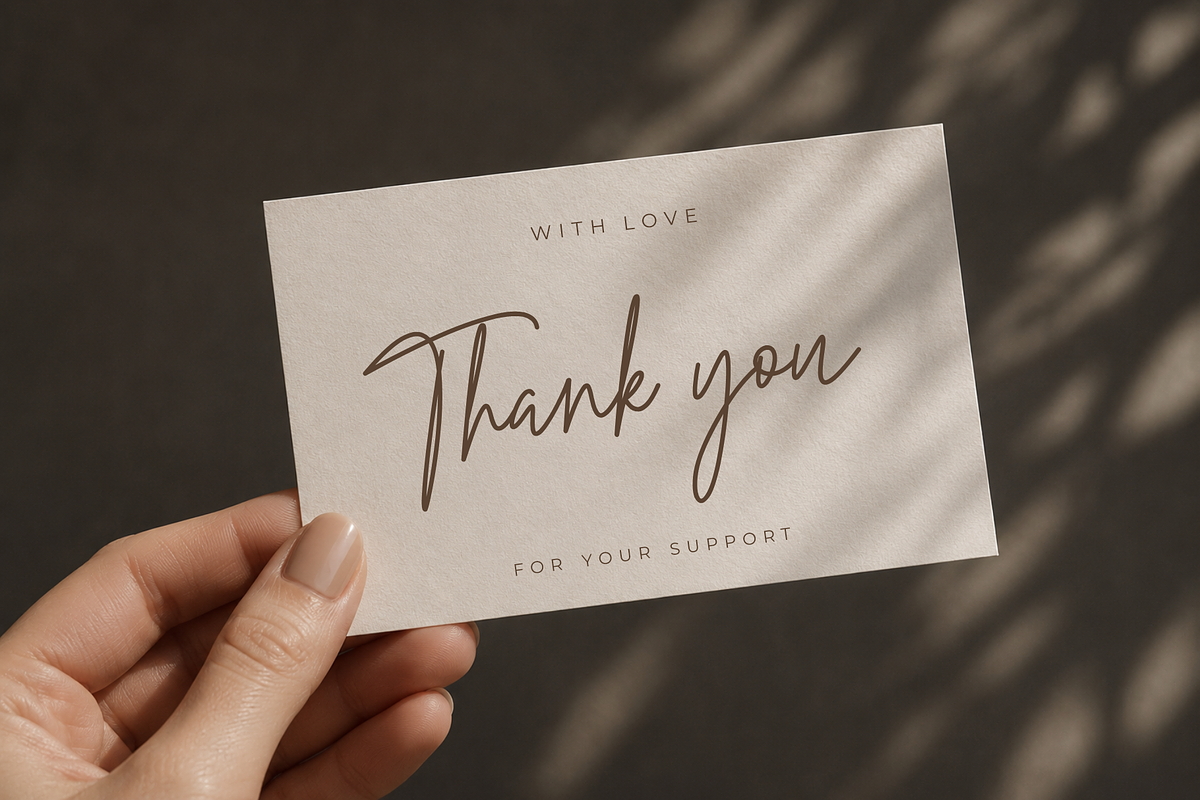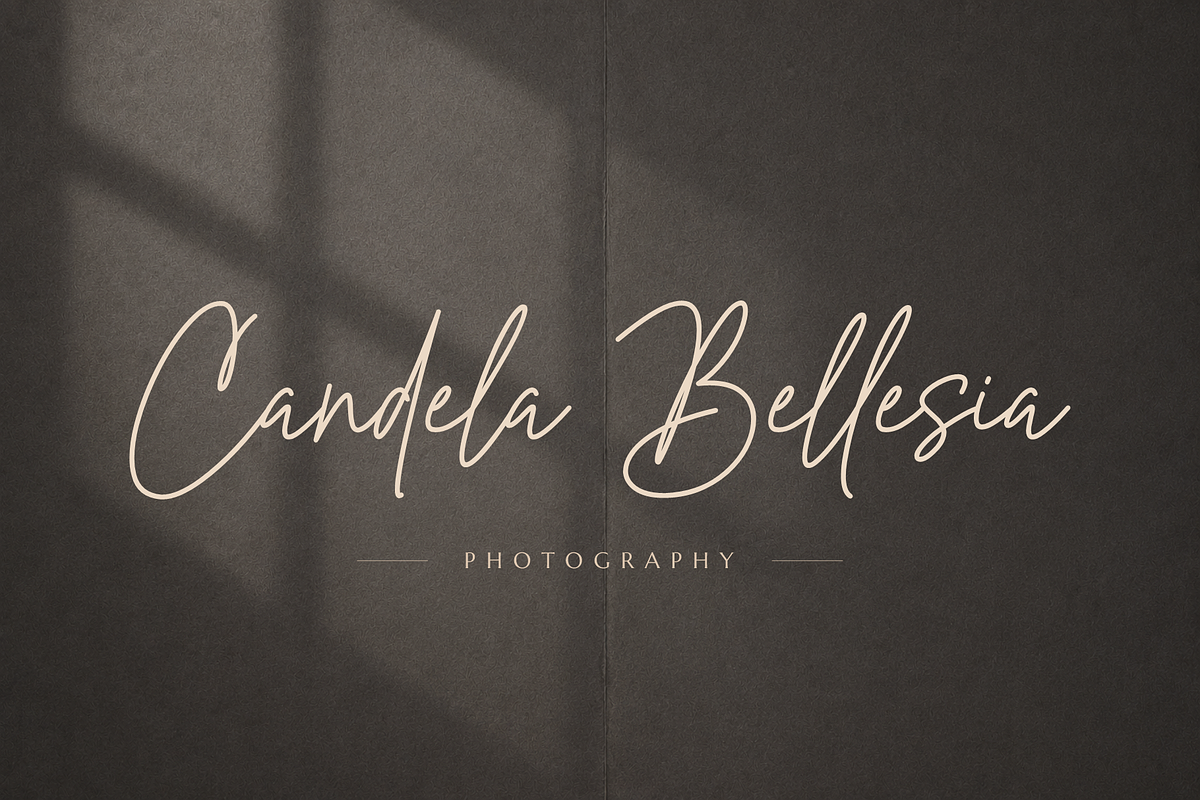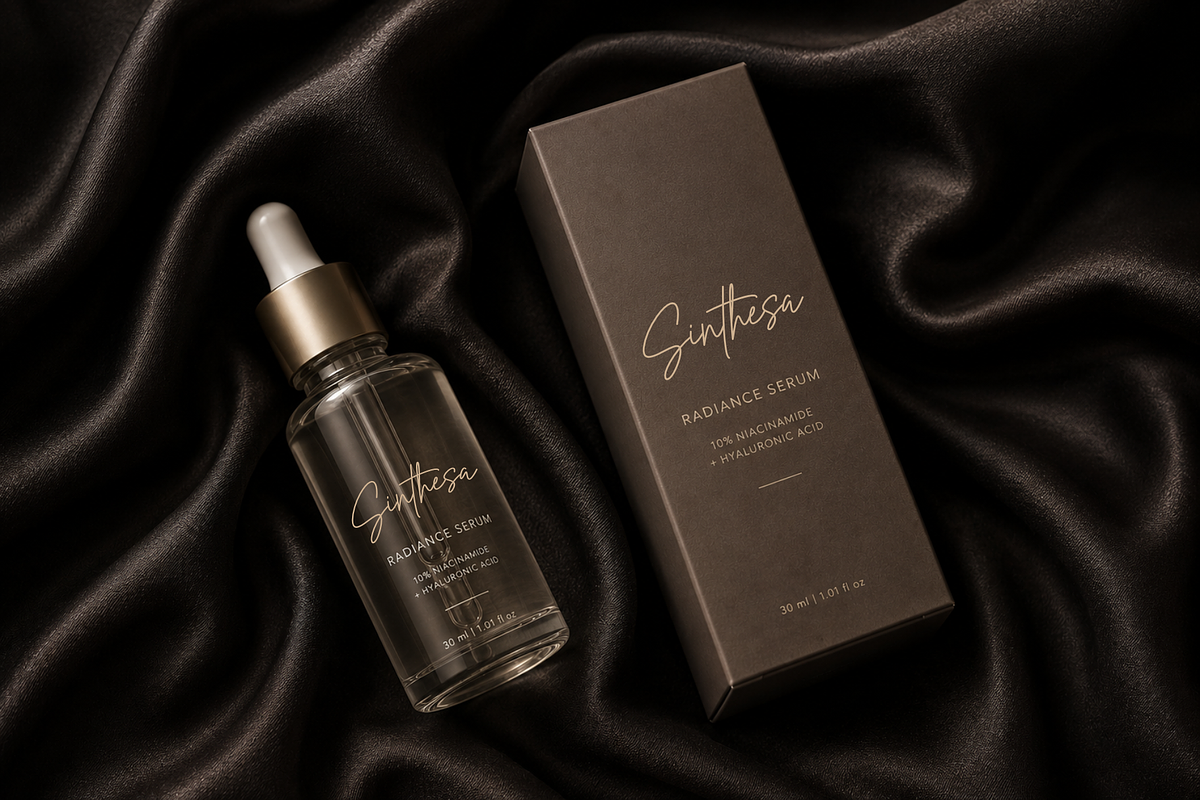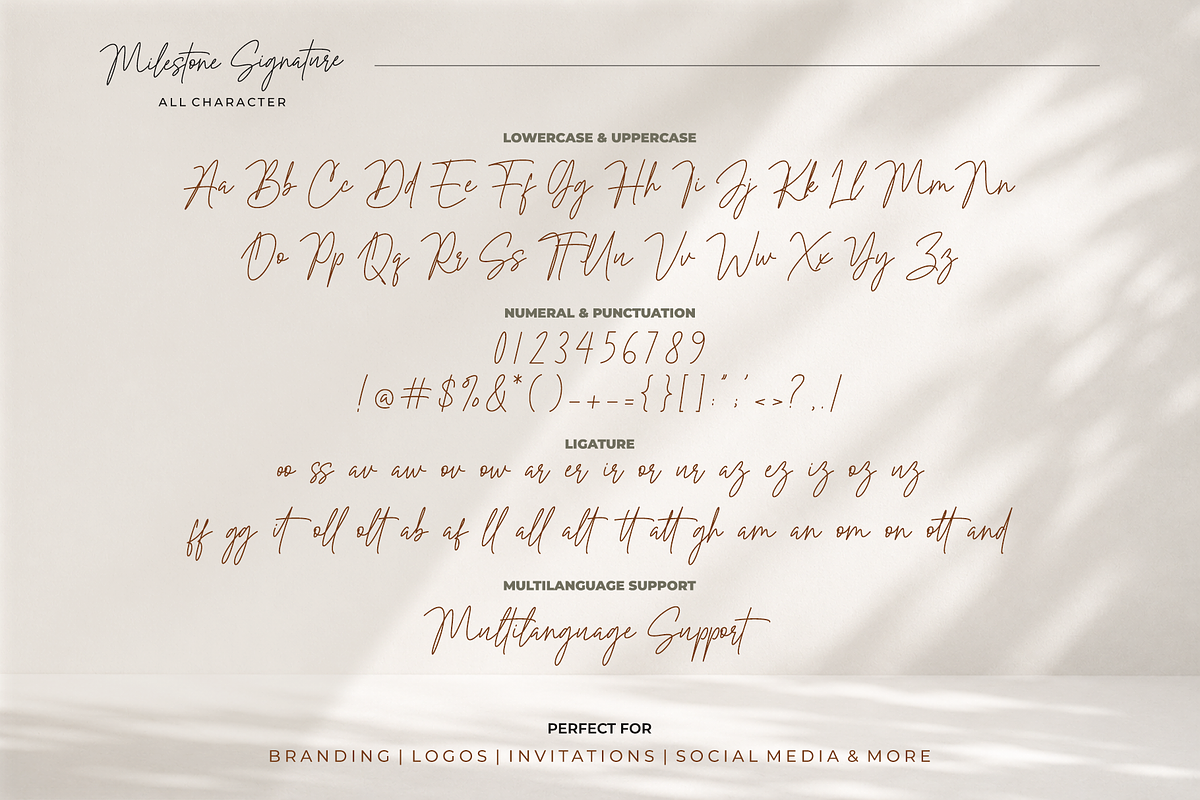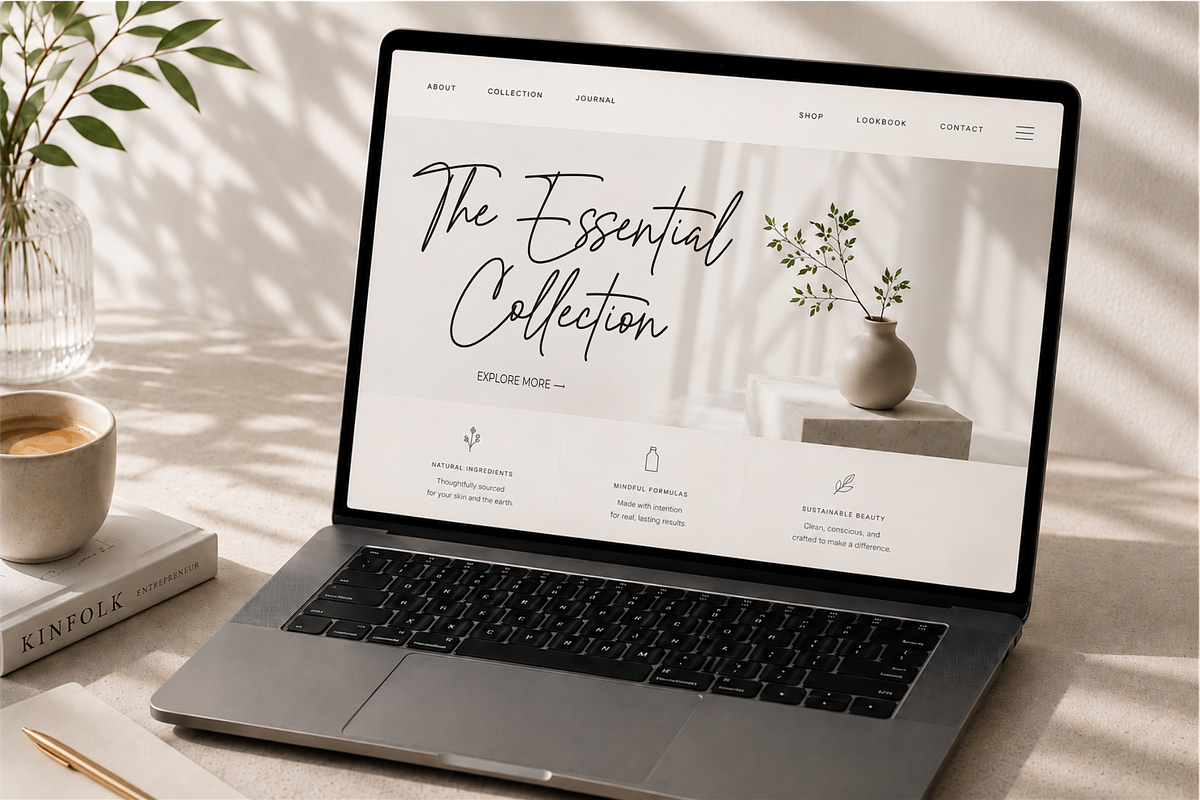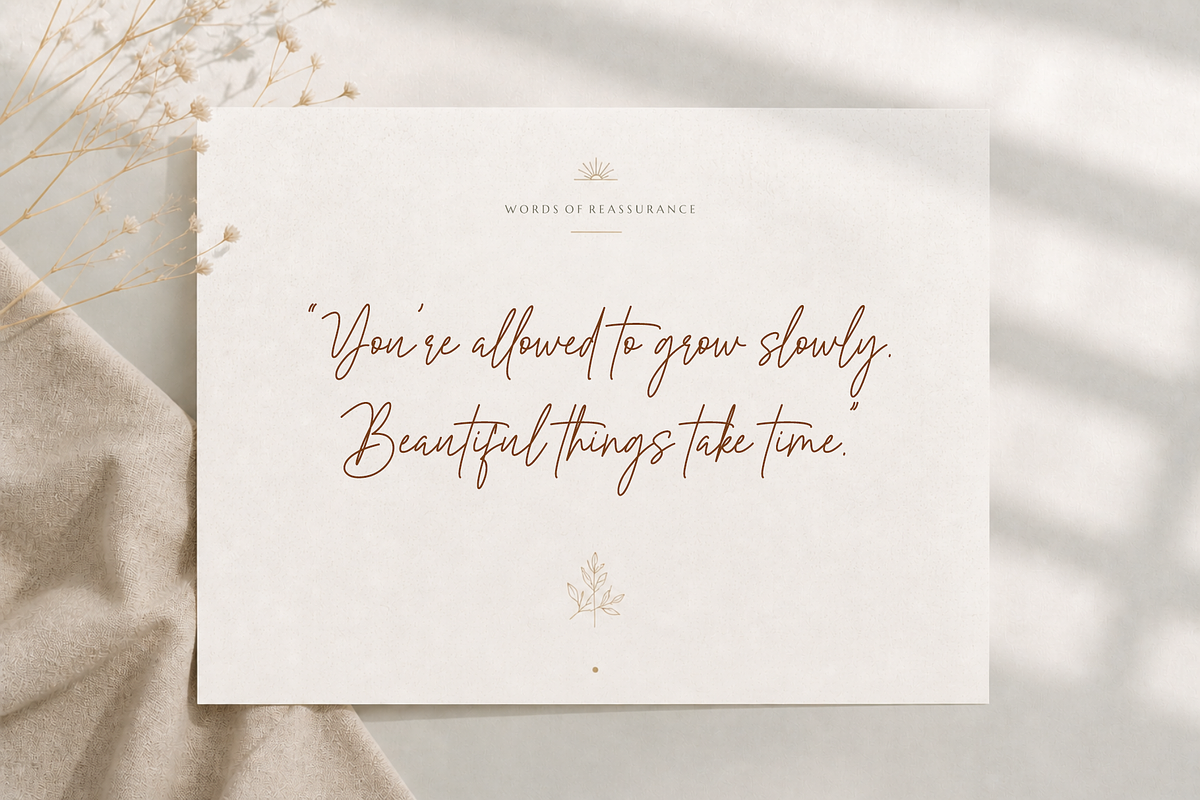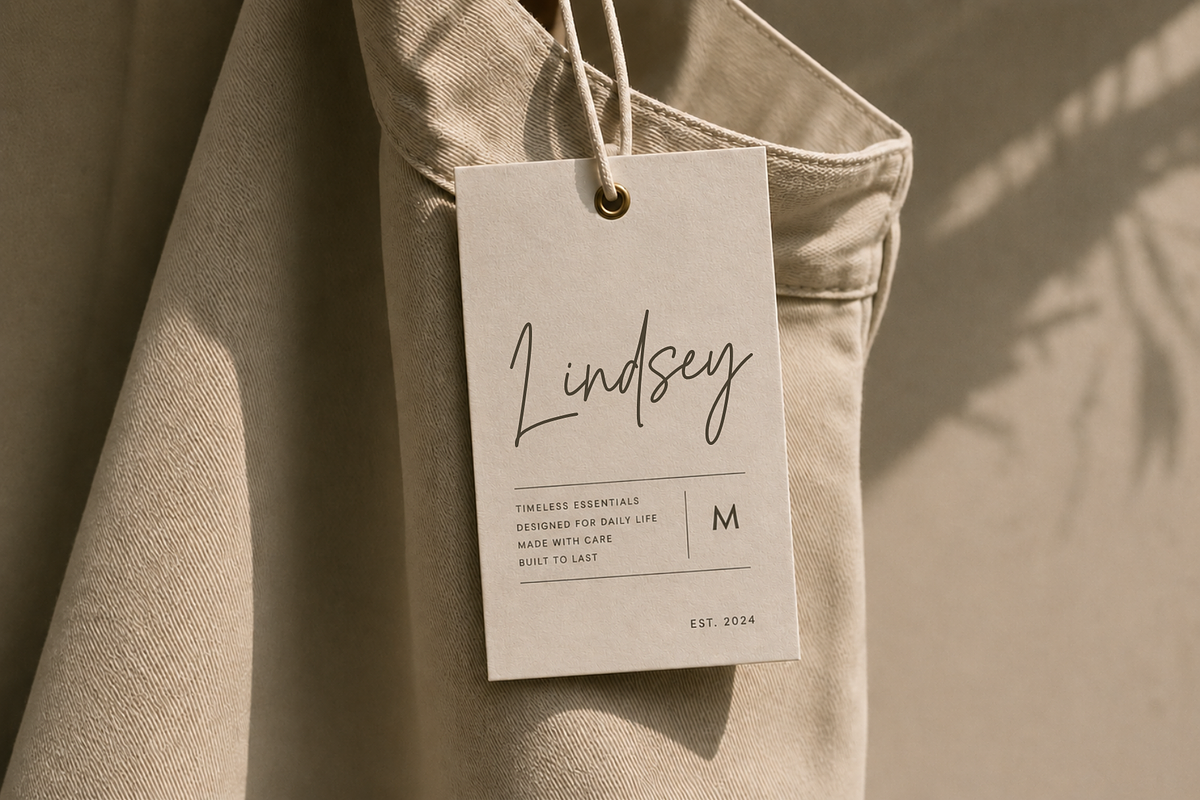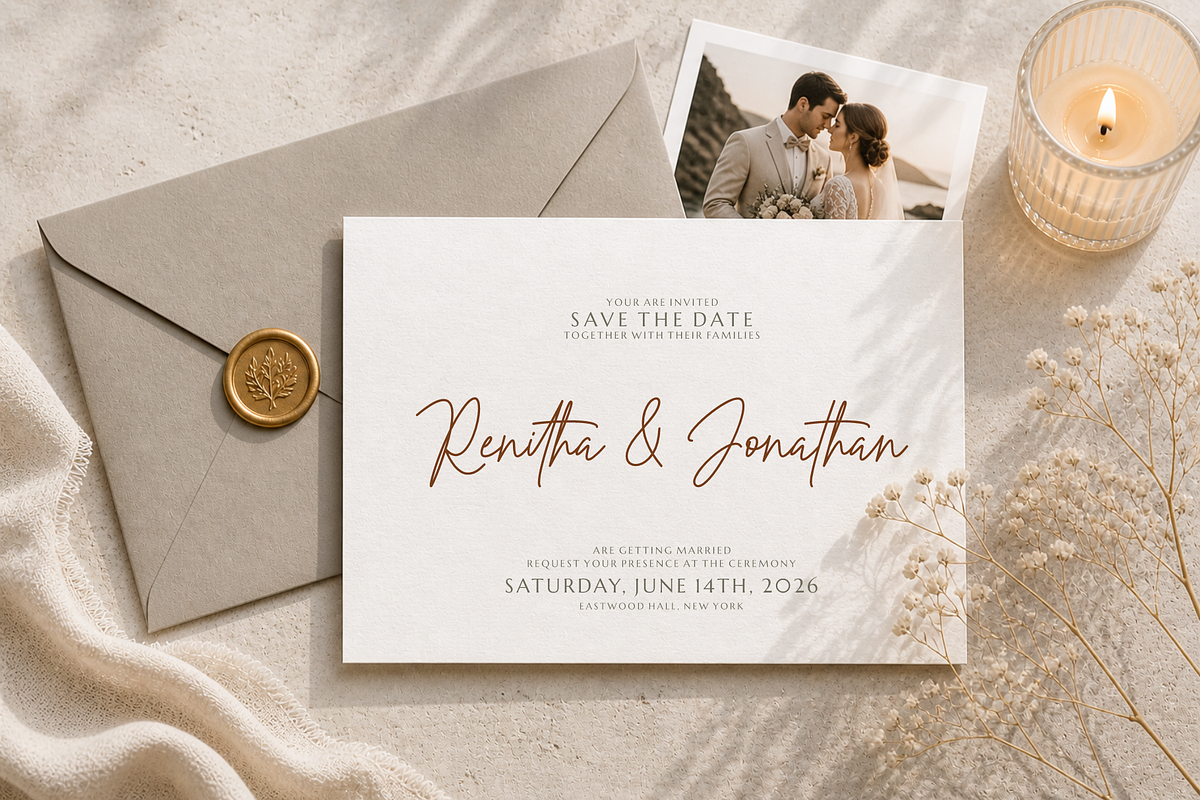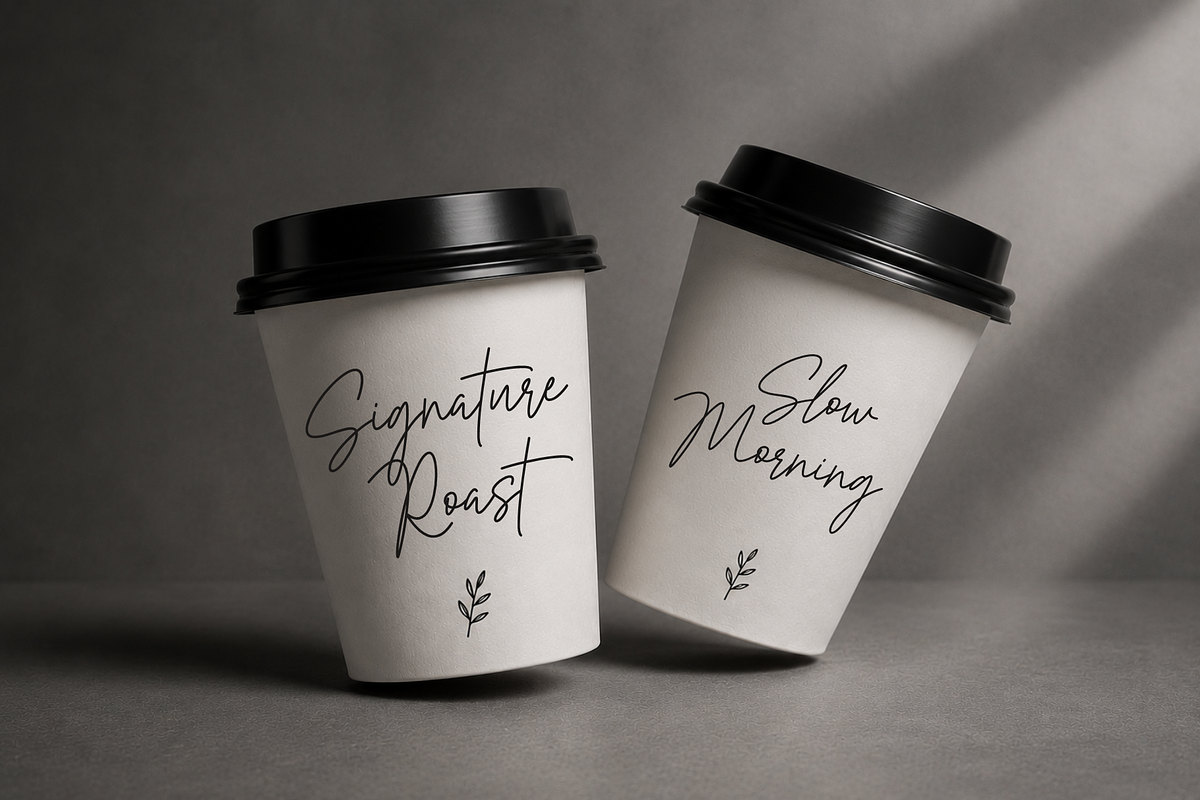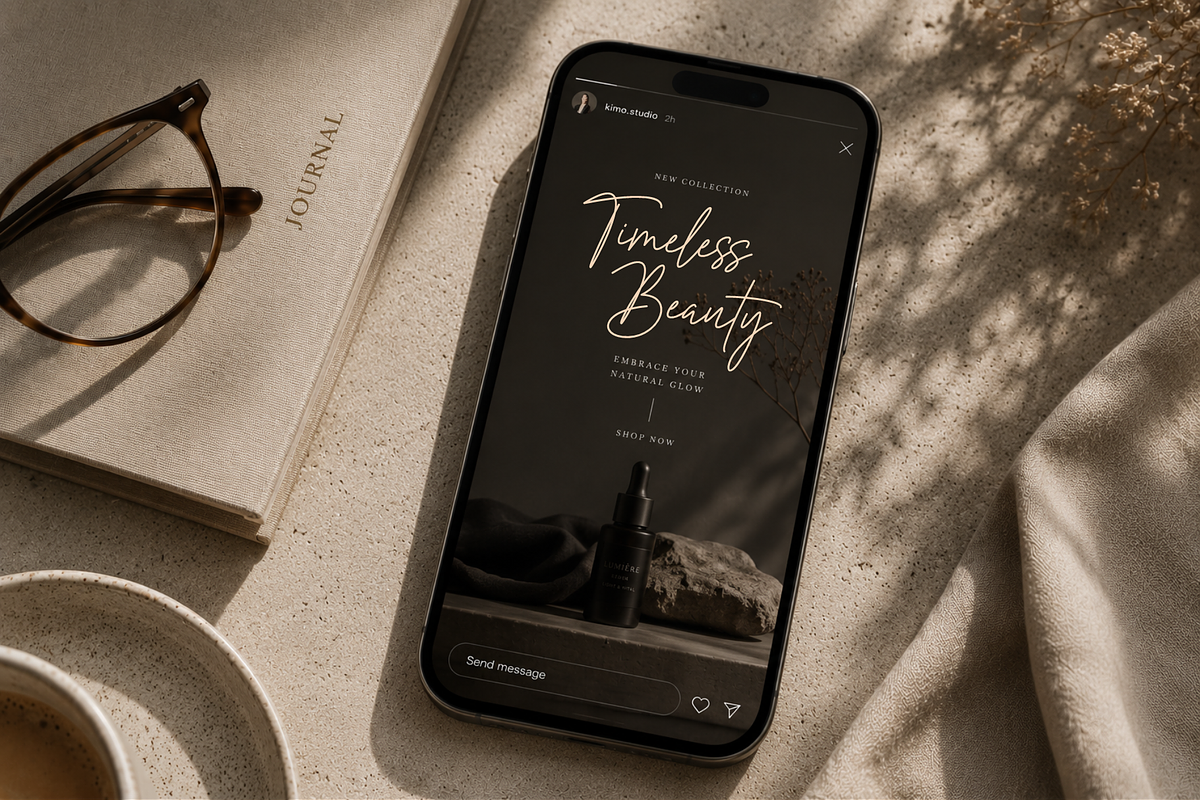
Milestone Signature Font
Milestone Signature is a stylish handwritten script font crafted with elegant natural flow and modern luxury aesthetics. Designed to bring a refined and sophisticated touch to your creative projects, this font works beautifully for branding, logos, wedding invitations, social media, packaging, fashion editorials, and premium business designs.
With smooth curves, authentic handwritten strokes, and stylish ligatures, Milestone Signature helps you create elegant typography compositions with ease.